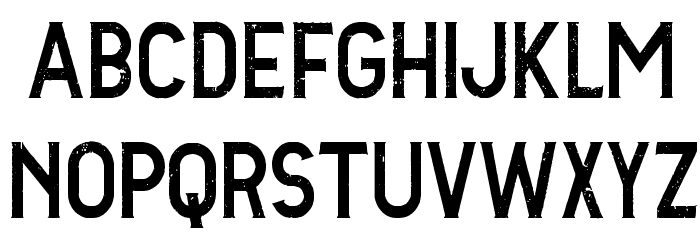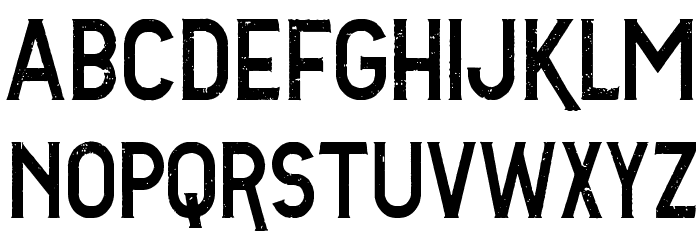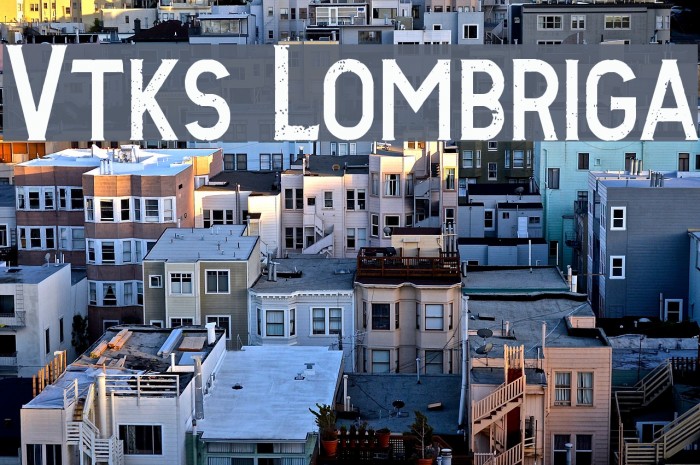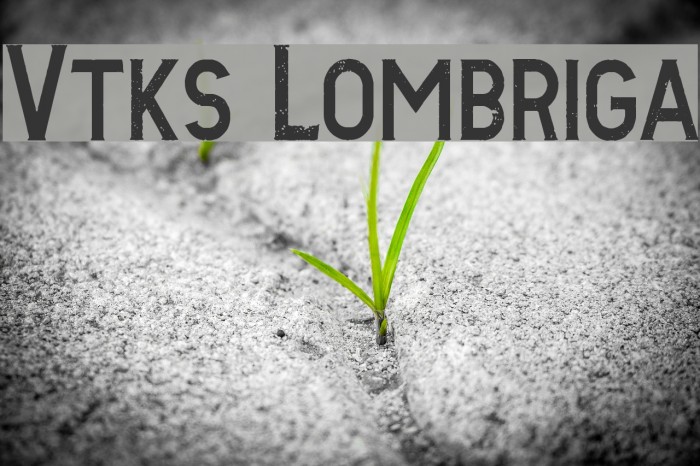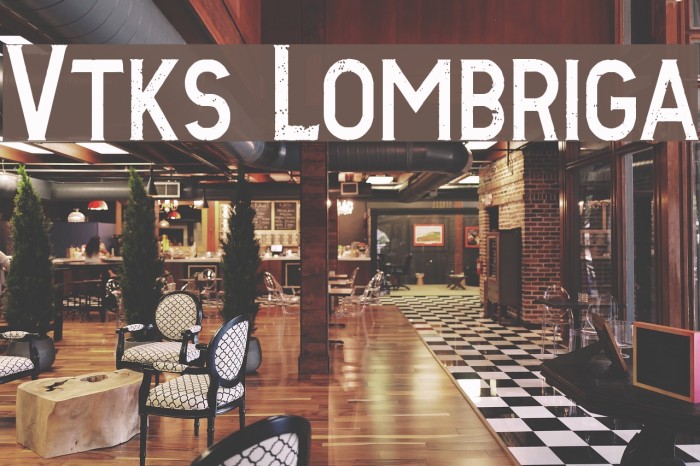
Vtks Lombriga Font
This font features a bold, distressed style with a textured appearance that gives it a rugged and vintage feel. The uppercase letters are uniform in height, with sharp, angular edges and a slightly condensed form. The distressed texture adds character, making each letter appear unique while maintaining legibility. This font is ideal for projects that require a strong, impactful look with a touch of nostalgia. Its bold presence makes it suitable for headlines, posters, and branding materials where a distinctive and eye-catching typeface is desired.
A bold, distressed font with a vintage, textured appearance.
- Proposed Projects: Ideal for vintage-themed posters, branding, and headlines.
- Overall Style: Vintage
- Use Case: Headlines, Posters, Branding